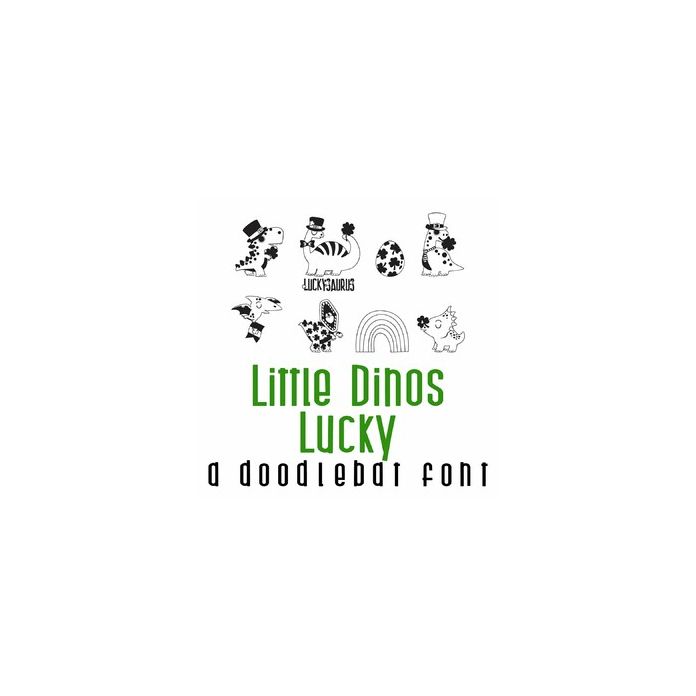
This adorable doodlebat font features 26 dinosaurs ready for St. Patrick's Day. Perfect for cards, crafts, gifts, decor, parties, planner stickers, scrapbook pages, classrooms and more!